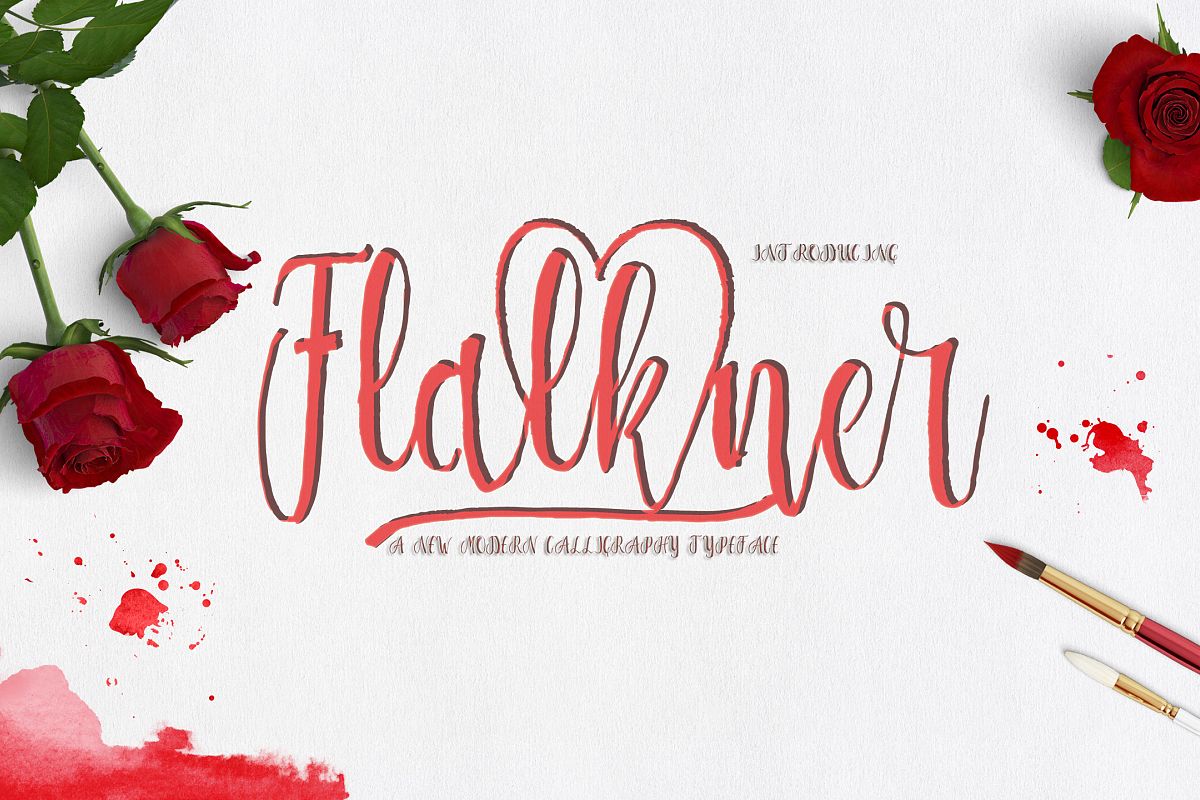
Flalkner
Flalkner Modern Calligraphy. This font was designed by handwriting, and it has a modern and unique forms of calligraphy, the writing style is very natural.The Features of this fonts is;   * Standart ligatures   * Stylistic Alternates   * Contextual Alternates   File font Flalkner Include;   * Flalkner OTF   * Flalkner TTF   * Flalkner font Web   * Flalkner PUA Unicode (Private Use Areas) Programs that support in this font is a Photo Shop, Adobe Illustrator, Adobe Indesign, Corel Draw and Microsoft Office. Can be used for various purposes.such as headings, logos, wedding invitation, t-shirt, letterhead, signage, lable, news, posters, badges etc. To enable the OpenType Stylistic alternates, you need a program that supports OpenType features such as Adobe Illustrator CS, Adobe Indesign & CorelDraw X6-X7.
This Font Was Designed By Hand And It Has A Modern And Unique The Writing Style Is Very Natu Flalkner Modern Calligraphy